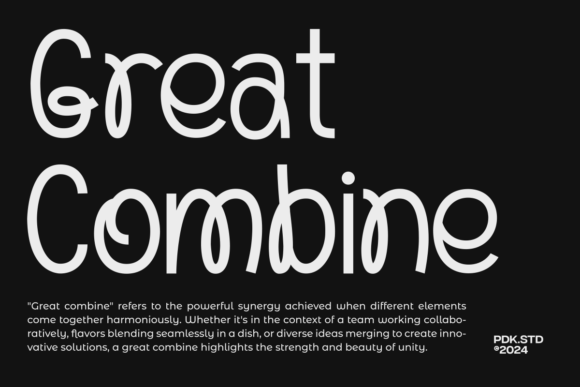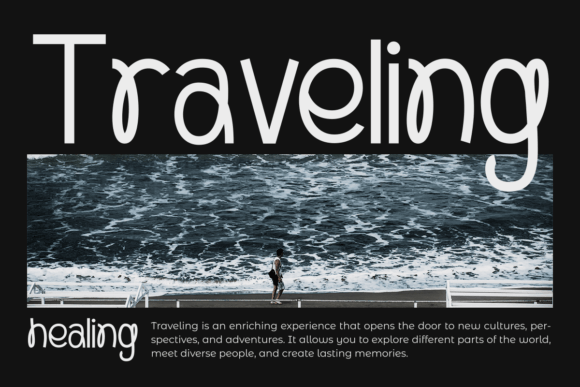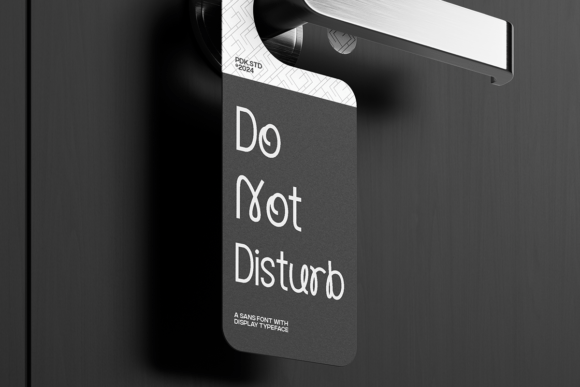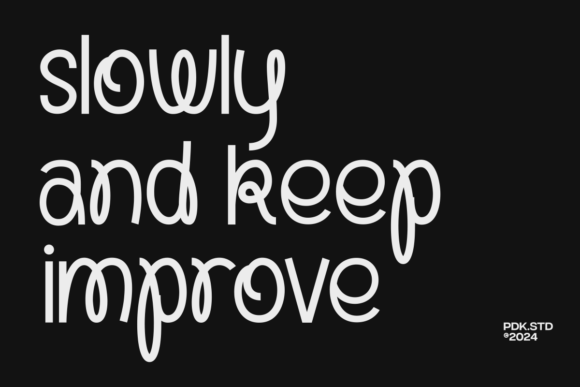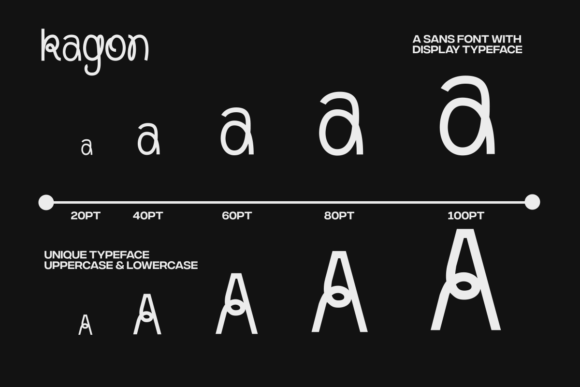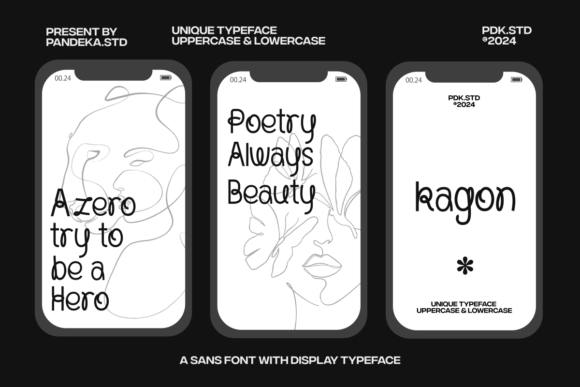
Introduction to Kagon Font
As designers, we’ve all been there – staring at a blank canvas, waiting for inspiration to strike. And then, suddenly, it hits you. A burst of creativity, a spark of genius, and your project is off to a flying start. But what happens when you’re stuck on the font? The one thing that can make or break the entire design. That’s where the Kagon Font comes in – a game-changing, high-quality design resource that’s about to revolutionize the way you approach your creative projects.
With its stylish curves and modern visual design, the Kagon Font is the perfect combination of strength and play. Whether you’re working on logos, advertisements, or magazine layouts, this versatile font is sure to elevate your design to the next level. And the best part? It’s available for free download, so you can experiment with it to your heart’s content.
Key Features of Kagon Font
- Unique and elegant design style, perfect for creative projects and modern designs.
- Features a transparent background, allowing for easy customization and versatility in design applications.
- Includes a range of sizes and resolutions, including 1000px, 500px, and 200px, for optimal use in various creative projects.
- Perfect for use in graphic design, digital art, and other creative fields where a unique and high-quality font is required.
- Supports multiple languages, making it a valuable resource for international design projects.
Honest Review: Kagon Font
I recently had the opportunity to try out the Kagon Font for a creative project, and I must say I was quite impressed. As a designer, I’m always on the lookout for high-quality design resources that can elevate my work.
One of the standout features of the Kagon Font is its versatility. It’s perfect for a variety of creative projects, from branding to digital design. The font is highly customizable, allowing you to easily adjust the size, color, and even add a transparent background to suit your needs.
- ✨ High-quality design with a modern and sleek aesthetic.
- ✨ Easy to customize and adjust to suit your project’s needs.
- ⚠️ Limited font weights available, which may not be suitable for all design projects.
- ⚠️ Not ideal for use in small font sizes, as it may become difficult to read.
Overall, I’m pleased with the Kagon Font and would recommend it to designers looking for a high-quality, free design resource. With a little creativity and experimentation, you can achieve great results with this versatile font.
How to Use Kagon Font
The Kagon Font is a versatile and high-quality design resource that can elevate your creative project. With its modern and sleek design, it’s perfect for various applications, from logos and branding to digital products and print materials.
Tips for Getting the Most Out of Kagon Font
Here are some tips to help you get the most out of the Kagon Font:
- Use the font with a transparent background for a clean and modern look.
- Combine the Kagon Font with other design elements, such as images and shapes, to create a cohesive design.
The Kagon Font is suitable for various use cases, including:
- Logo design and branding
- Digital product design
- Print materials, such as business cards and brochures